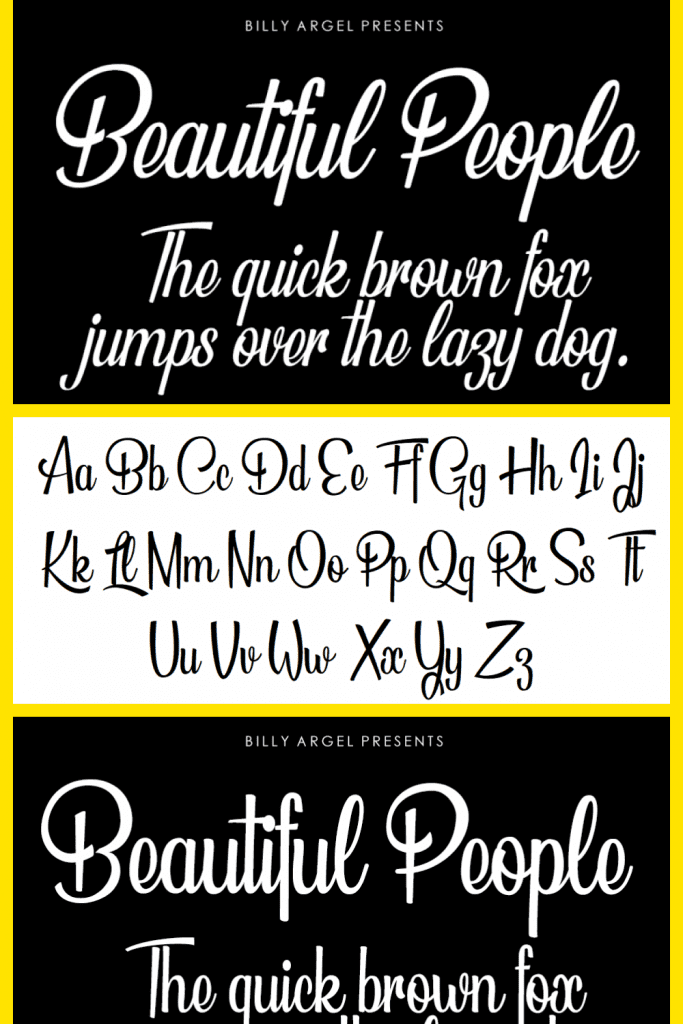
Best Font For Brochure . Today, we'll give you some tips on how to choose a font for your brochure, show you some examples of fonts used in brochures, and then share the. The key to picking a good typography font for a digital catalog is to find something that’s legible even at smaller sizes. Learn how to choose the best fonts for. The best typography fonts for catalogs. Distinctive and versatile, these font sets from designers around the globe add a sophisticated, professional look to promotional materials of all kinds. So let’s check them out in detail. We have included various types of typefaces with exciting designs to help your flyers and brochure designs. Learn how to choose the best fonts for brochures based on typography rules, legibility, aesthetic, and suitability for print. You never know how small you’ll have to go with the text, so the best thing to do is to pick something that’s simple. Explore a variety of fonts for brochures, from modern and clean to elegant and vintage. The best fonts for business brochures and flyers combine classic styling with modern features. After all, not only do you need to have. Designing flyers isn’t as simple as putting some words on paper and distributing them.
We have included various types of typefaces with exciting designs to help your flyers and brochure designs. Today, we'll give you some tips on how to choose a font for your brochure, show you some examples of fonts used in brochures, and then share the. Explore a variety of fonts for brochures, from modern and clean to elegant and vintage. The key to picking a good typography font for a digital catalog is to find something that’s legible even at smaller sizes. Designing flyers isn’t as simple as putting some words on paper and distributing them. After all, not only do you need to have. The best typography fonts for catalogs. So let’s check them out in detail. You never know how small you’ll have to go with the text, so the best thing to do is to pick something that’s simple. Distinctive and versatile, these font sets from designers around the globe add a sophisticated, professional look to promotional materials of all kinds.
10 Best Fonts for Brilliant Brochures
Best Font For Brochure So let’s check them out in detail. The best typography fonts for catalogs. After all, not only do you need to have. So let’s check them out in detail. The best fonts for business brochures and flyers combine classic styling with modern features. Distinctive and versatile, these font sets from designers around the globe add a sophisticated, professional look to promotional materials of all kinds. Explore a variety of fonts for brochures, from modern and clean to elegant and vintage. Today, we'll give you some tips on how to choose a font for your brochure, show you some examples of fonts used in brochures, and then share the. Learn how to choose the best fonts for. Learn how to choose the best fonts for brochures based on typography rules, legibility, aesthetic, and suitability for print. We have included various types of typefaces with exciting designs to help your flyers and brochure designs. You never know how small you’ll have to go with the text, so the best thing to do is to pick something that’s simple. The key to picking a good typography font for a digital catalog is to find something that’s legible even at smaller sizes. Designing flyers isn’t as simple as putting some words on paper and distributing them.
The best typography fonts for catalogs and brochures Flipsnack Blog Best Font For Brochure The key to picking a good typography font for a digital catalog is to find something that’s legible even at smaller sizes. Today, we'll give you some tips on how to choose a font for your brochure, show you some examples of fonts used in brochures, and then share the. The best typography fonts for catalogs. The best fonts for. Best Font For Brochure.
6 Great Fonts for Your Brochures Image Cube Best Font For Brochure The best typography fonts for catalogs. Explore a variety of fonts for brochures, from modern and clean to elegant and vintage. The best fonts for business brochures and flyers combine classic styling with modern features. The key to picking a good typography font for a digital catalog is to find something that’s legible even at smaller sizes. Learn how to. Best Font For Brochure.
The Best Fonts for Brochures (with Examples) Envato Tuts+ Best Font For Brochure Learn how to choose the best fonts for. Explore a variety of fonts for brochures, from modern and clean to elegant and vintage. The best typography fonts for catalogs. We have included various types of typefaces with exciting designs to help your flyers and brochure designs. You never know how small you’ll have to go with the text, so the. Best Font For Brochure.
Best Fonts for Business Brochures and Flyers That Stand Out How to Best Font For Brochure You never know how small you’ll have to go with the text, so the best thing to do is to pick something that’s simple. Explore a variety of fonts for brochures, from modern and clean to elegant and vintage. So let’s check them out in detail. After all, not only do you need to have. The best fonts for business. Best Font For Brochure.
The Ultimate Guide to Choosing the Best Fonts for Brochure Printing Best Font For Brochure You never know how small you’ll have to go with the text, so the best thing to do is to pick something that’s simple. We have included various types of typefaces with exciting designs to help your flyers and brochure designs. Explore a variety of fonts for brochures, from modern and clean to elegant and vintage. The best typography fonts. Best Font For Brochure.
20 Best Brochure Fonts Best Font For Brochure We have included various types of typefaces with exciting designs to help your flyers and brochure designs. Explore a variety of fonts for brochures, from modern and clean to elegant and vintage. Today, we'll give you some tips on how to choose a font for your brochure, show you some examples of fonts used in brochures, and then share the.. Best Font For Brochure.
The Best Fonts for Brochures (with Examples) Envato Tuts+ Best Font For Brochure After all, not only do you need to have. Distinctive and versatile, these font sets from designers around the globe add a sophisticated, professional look to promotional materials of all kinds. Today, we'll give you some tips on how to choose a font for your brochure, show you some examples of fonts used in brochures, and then share the. So. Best Font For Brochure.
The Best Fonts for Brochures (with Examples) Envato Tuts+ Best Font For Brochure After all, not only do you need to have. Designing flyers isn’t as simple as putting some words on paper and distributing them. So let’s check them out in detail. Learn how to choose the best fonts for. The best fonts for business brochures and flyers combine classic styling with modern features. The best typography fonts for catalogs. You never. Best Font For Brochure.
Brochure Beauty 19 Best Fonts for Brochures Best Font For Brochure The best typography fonts for catalogs. The key to picking a good typography font for a digital catalog is to find something that’s legible even at smaller sizes. So let’s check them out in detail. Distinctive and versatile, these font sets from designers around the globe add a sophisticated, professional look to promotional materials of all kinds. You never know. Best Font For Brochure.